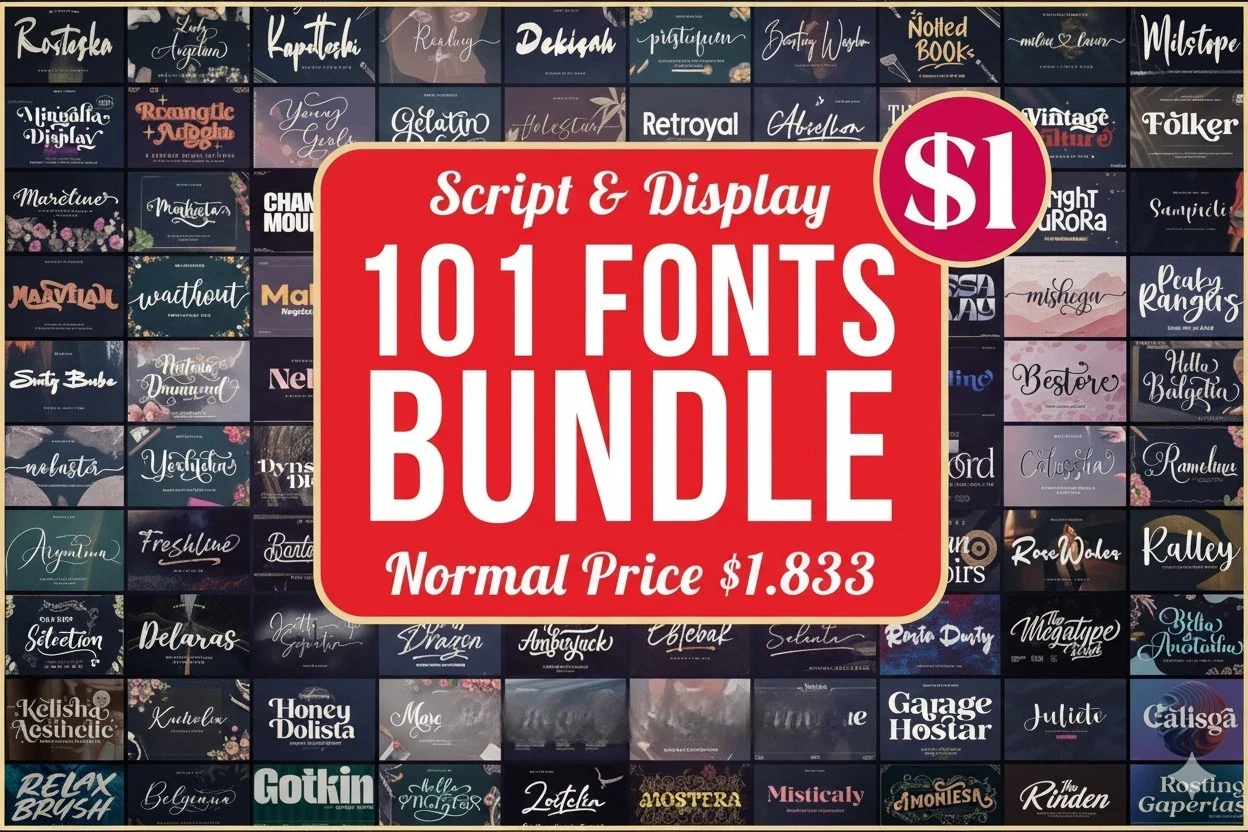
Script & Display Font Bundle – 101 Creative Typeface Pack
If you work on branding projects, social media graphics, invitations, or even Etsy-style printable designs, having a solid font bundle nearby honestly saves a lot of time. I’ve tested quite a few massive font packs over the years, and most of them end up feeling repetitive after the first dozen fonts. This one feels a bit more usable in real projects.
The Script & Display Font Bundle comes with 101 fonts that mix elegant script styles with bold display typefaces, which makes it surprisingly flexible for different kinds of designs.
You get a blend of:
- handwritten scripts
- modern display fonts
- serif and sans serif styles
- brush lettering
- signature fonts
- calligraphy typefaces
That mix matters more than it sounds. Some bundles overload everything with trendy cursive fonts that all look almost identical after a while. Here, there’s enough variation to actually pair fonts together without designs looking cloned from Pinterest.
A Good Fit for Branding & Packaging Projects
One thing I noticed while looking through the bundle is how many of the fonts work well for packaging mockups and logo concepts. A few of the display fonts have that slightly oversized editorial look that works nicely on cosmetic labels, café branding, candles, or boutique-style packaging.
The script fonts lean more modern than overly decorative too, which helps. Some calligraphy bundles become difficult to use because the swashes are too aggressive or the letters get unreadable at smaller sizes. These feel more balanced.
I could also see this bundle being useful for:
- social media quote graphics
- wedding invitations
- YouTube thumbnails
- apparel mockups
- printable wall art
- beauty brand logos
- small business packaging
Especially if you like mixing a clean sans serif with a softer handwritten accent font. That combination still works really well visually, even though it’s everywhere right now.